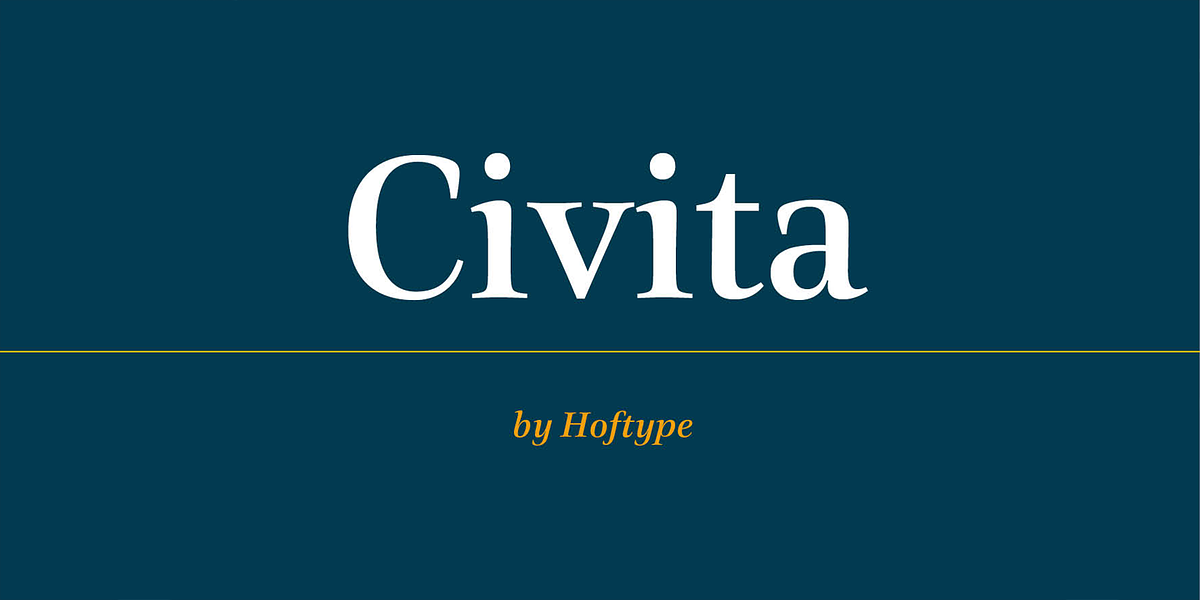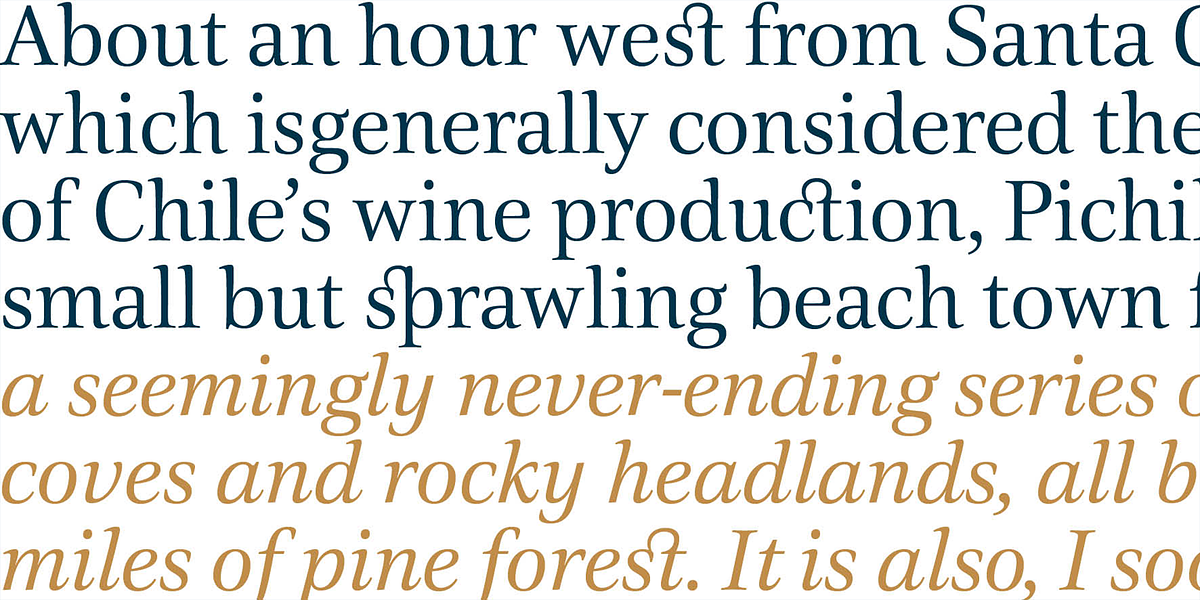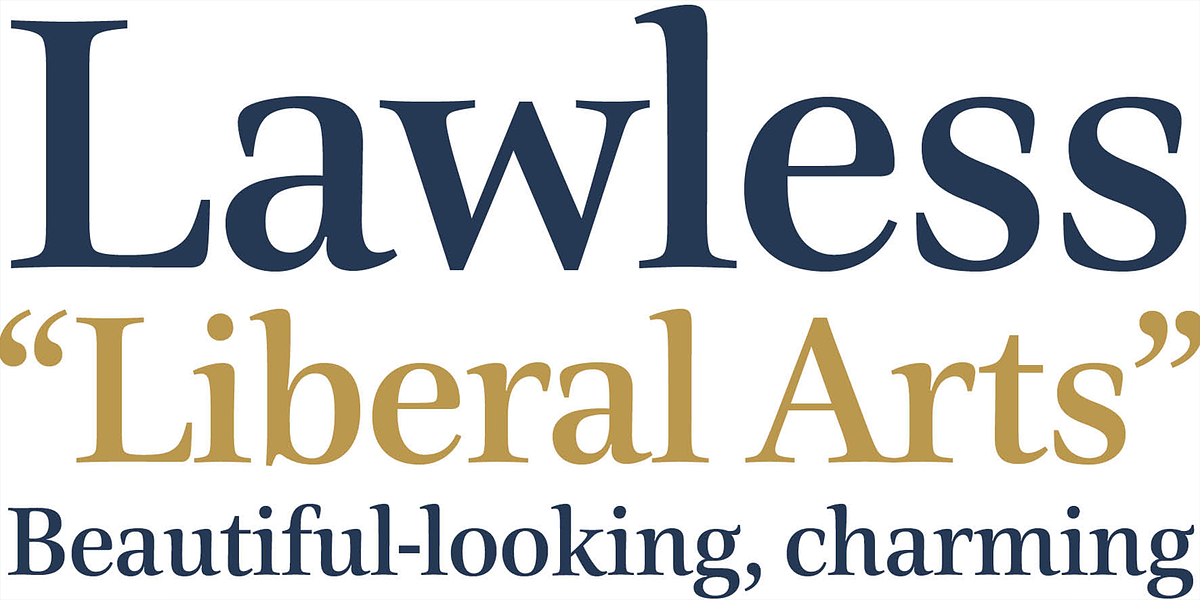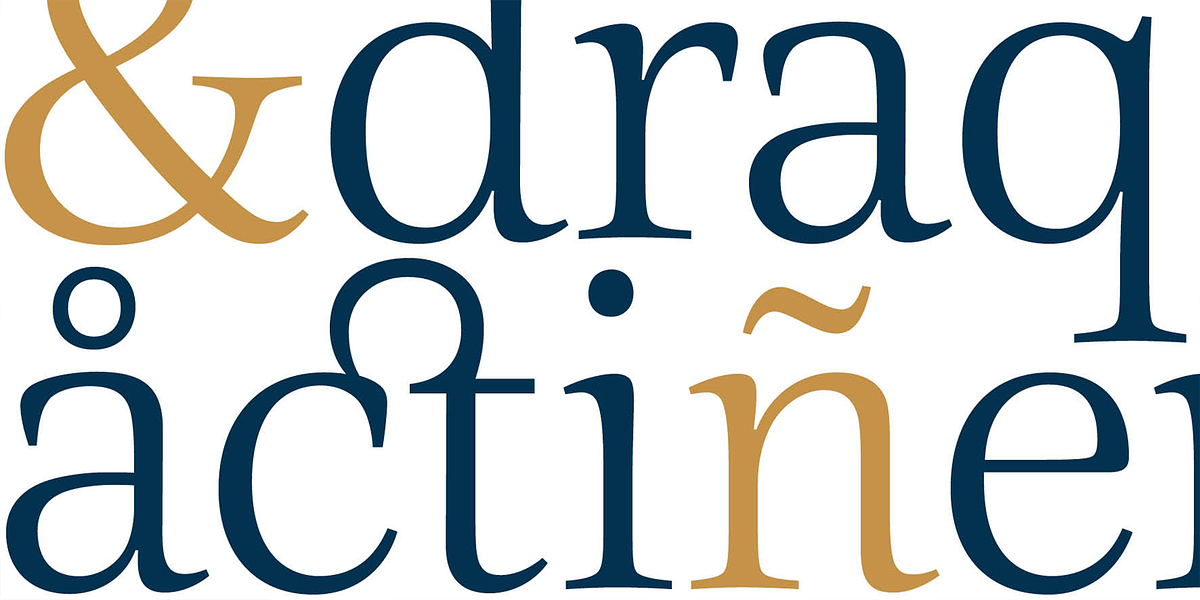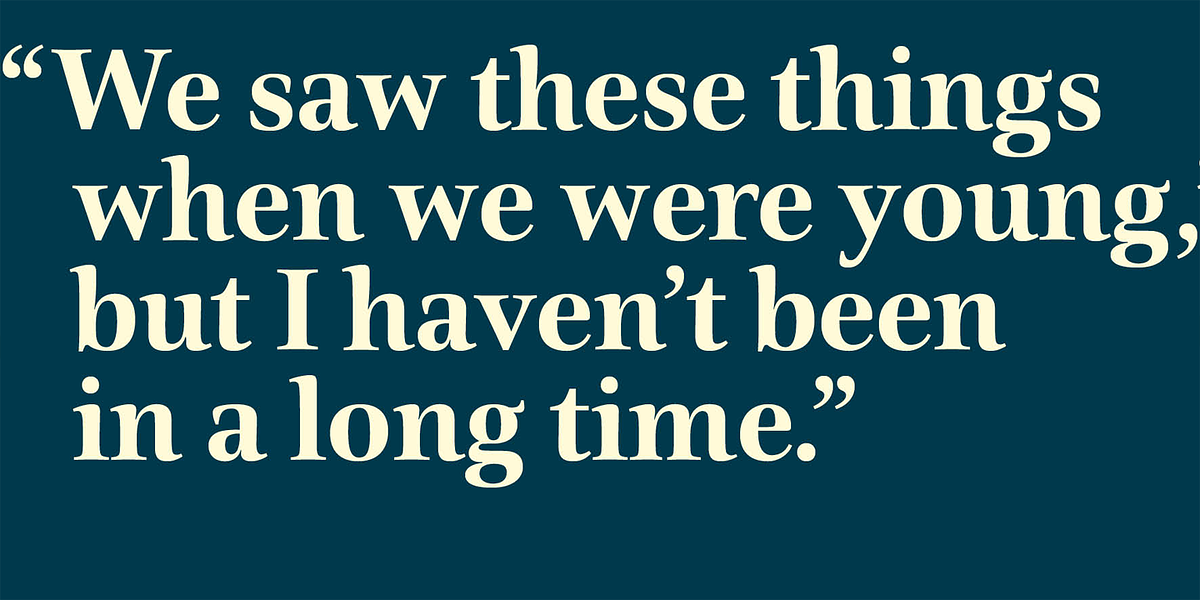
Civita
Civita is a modern serif typeface characterized by its high stroke contrast and distinct formal features. It balances a fluid ductus with a solid structure, resulting in a font with a strong personality. The Civita family offers 12 styles and extensive OpenType support, including small caps, various numeral sets, and currency symbols.